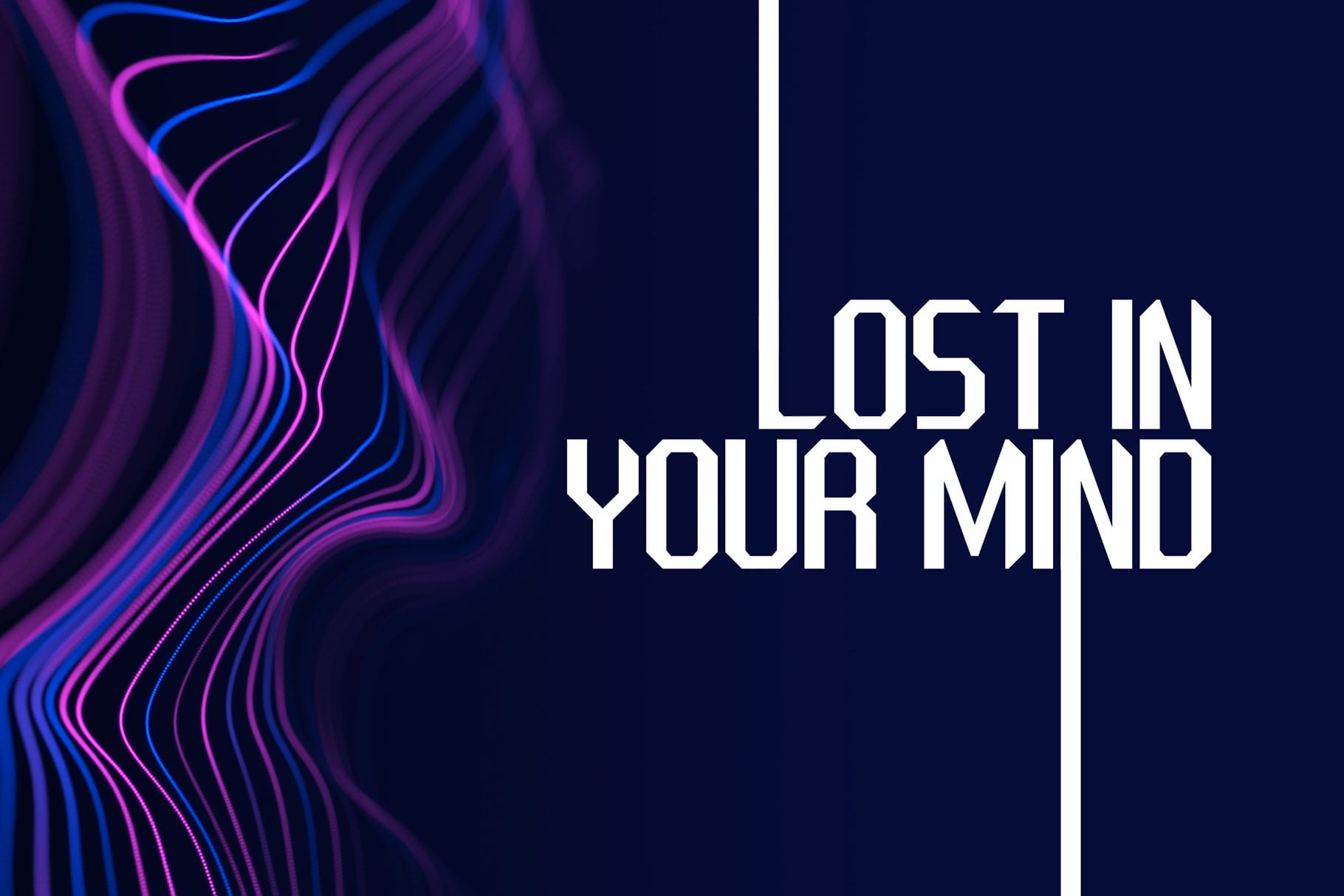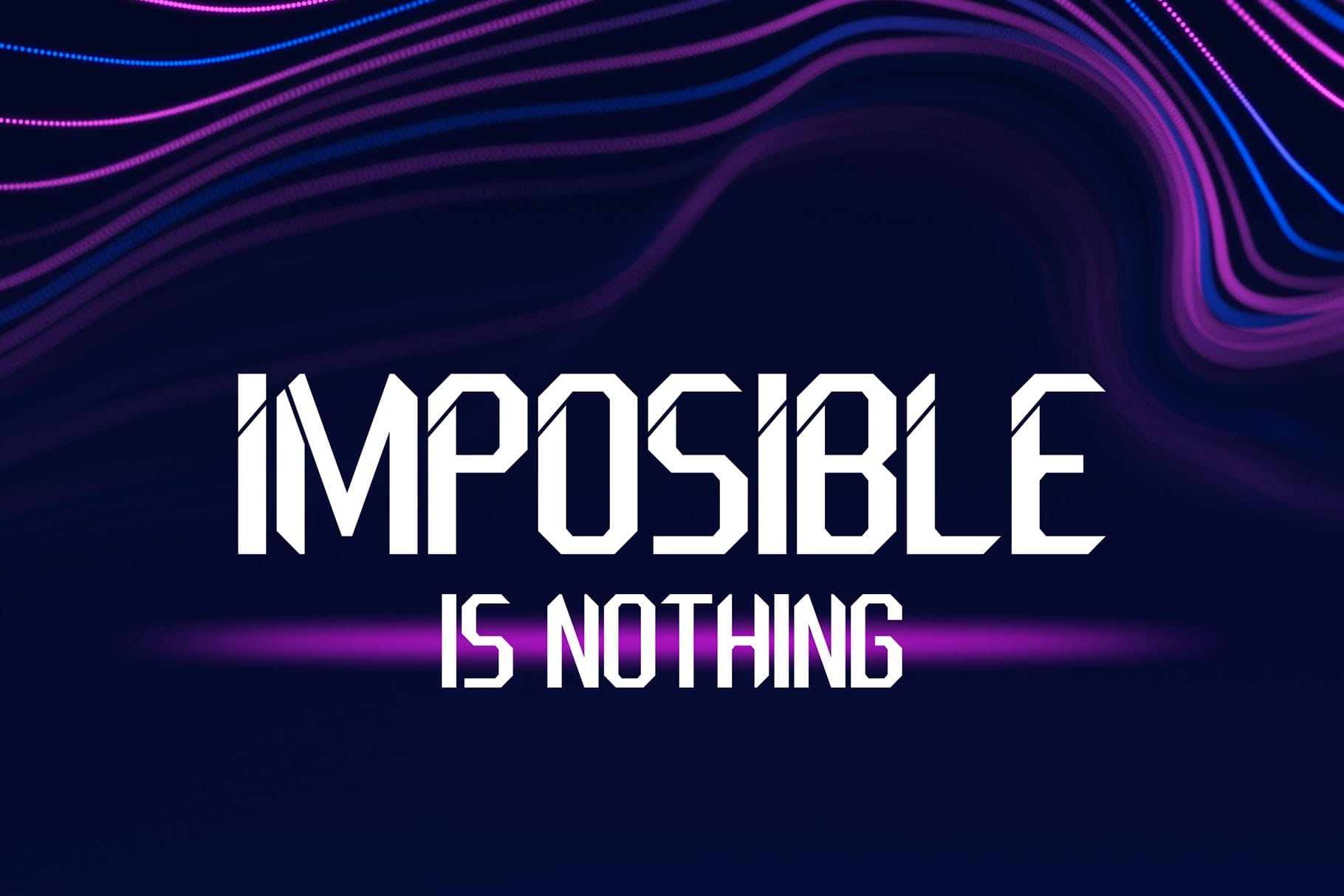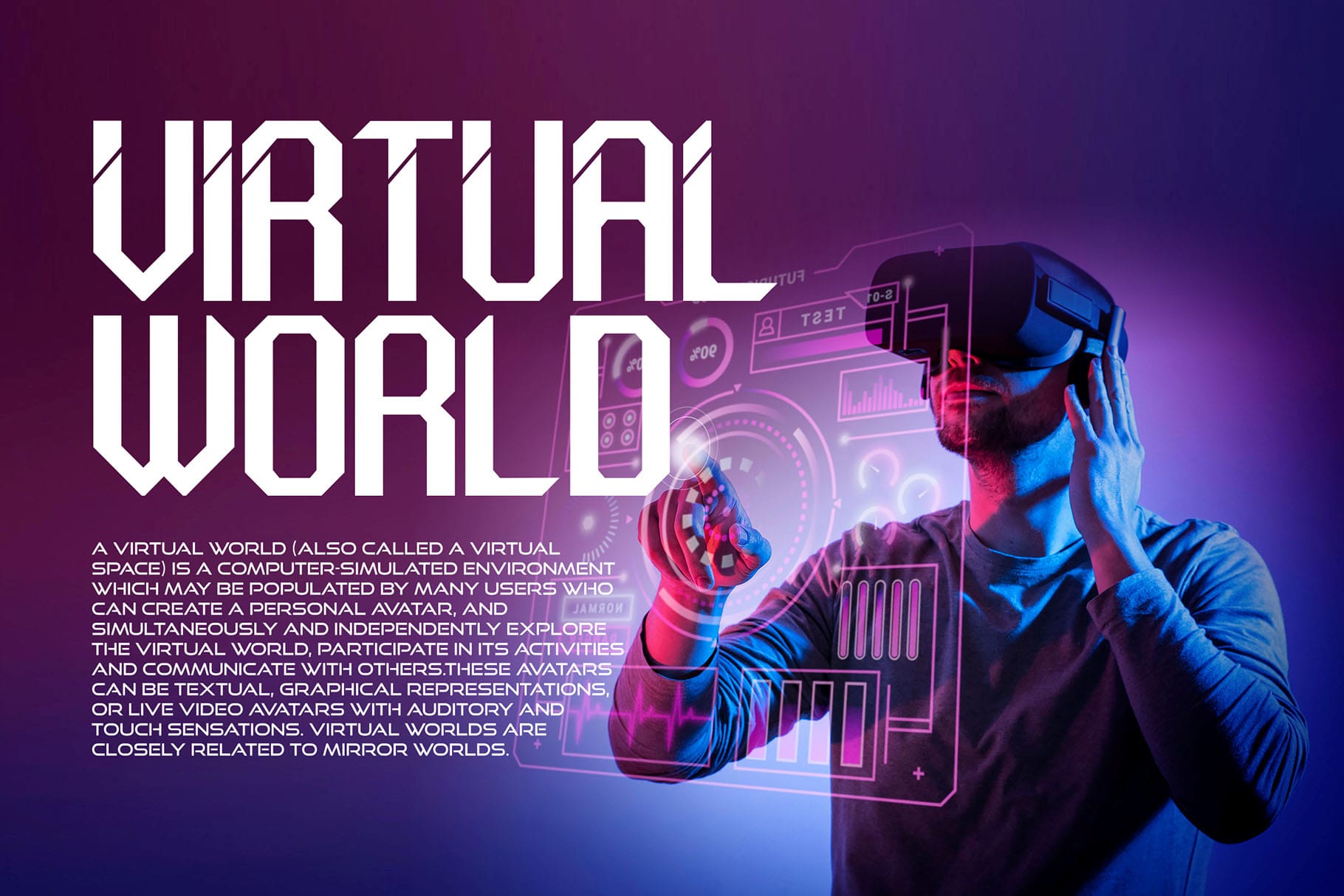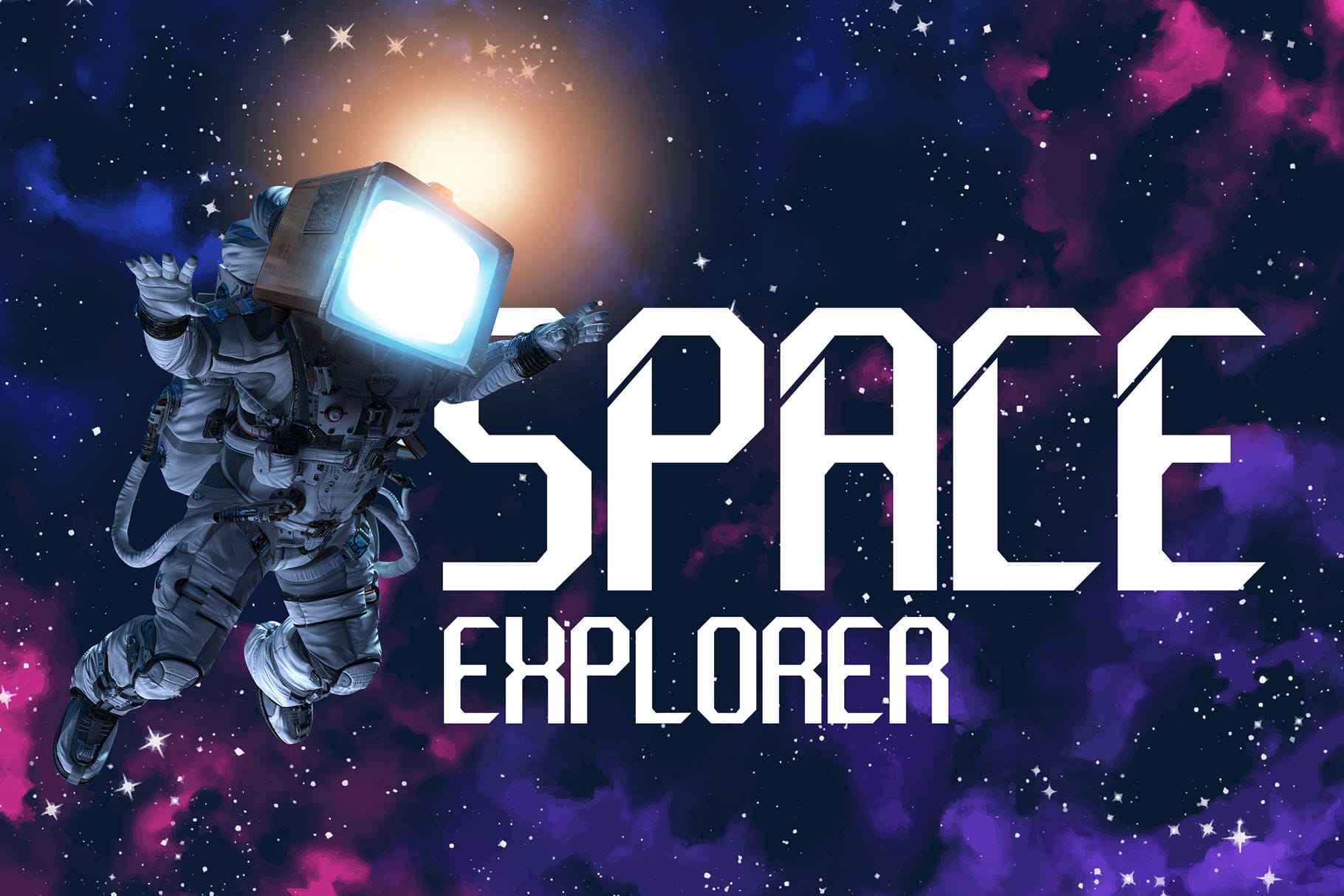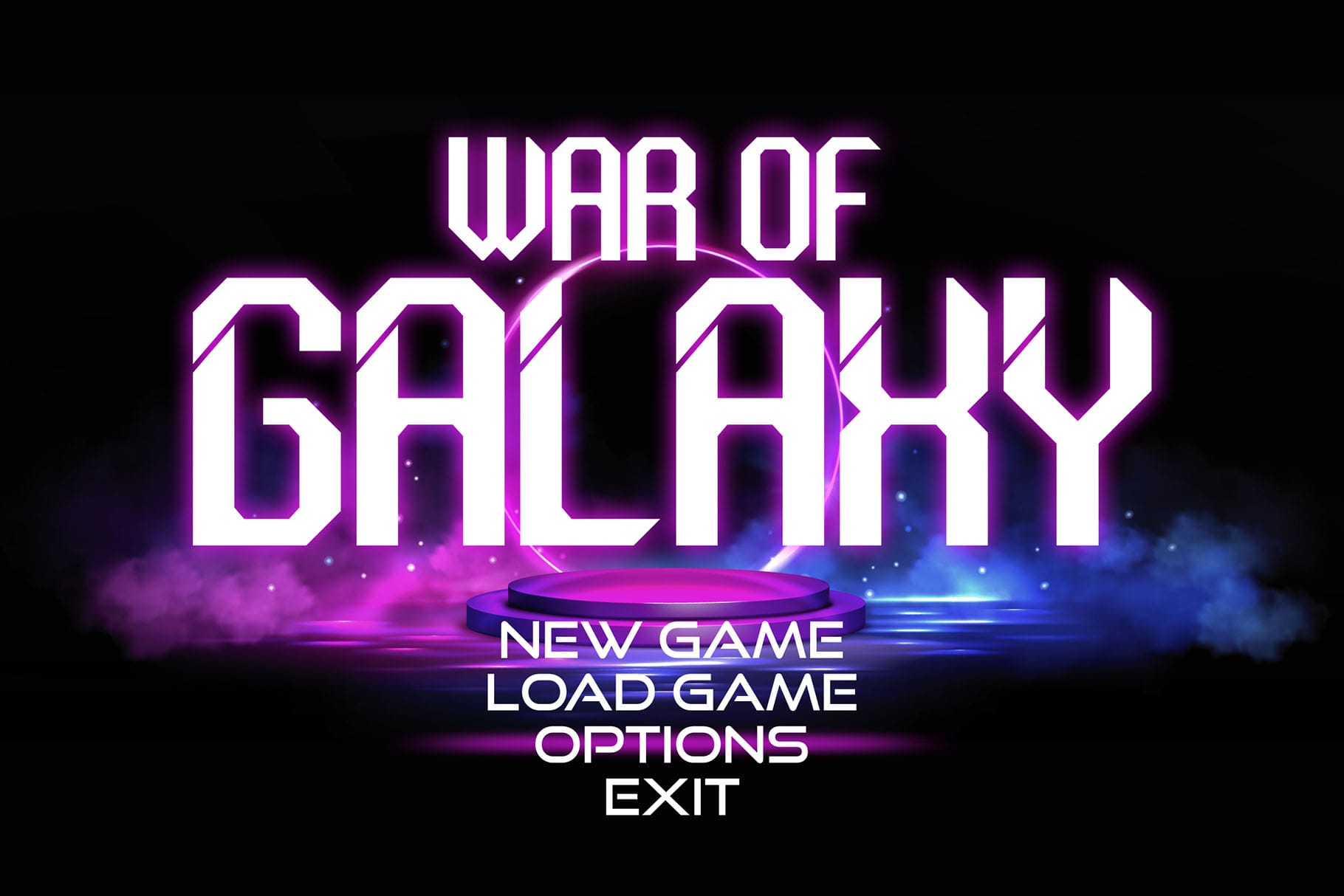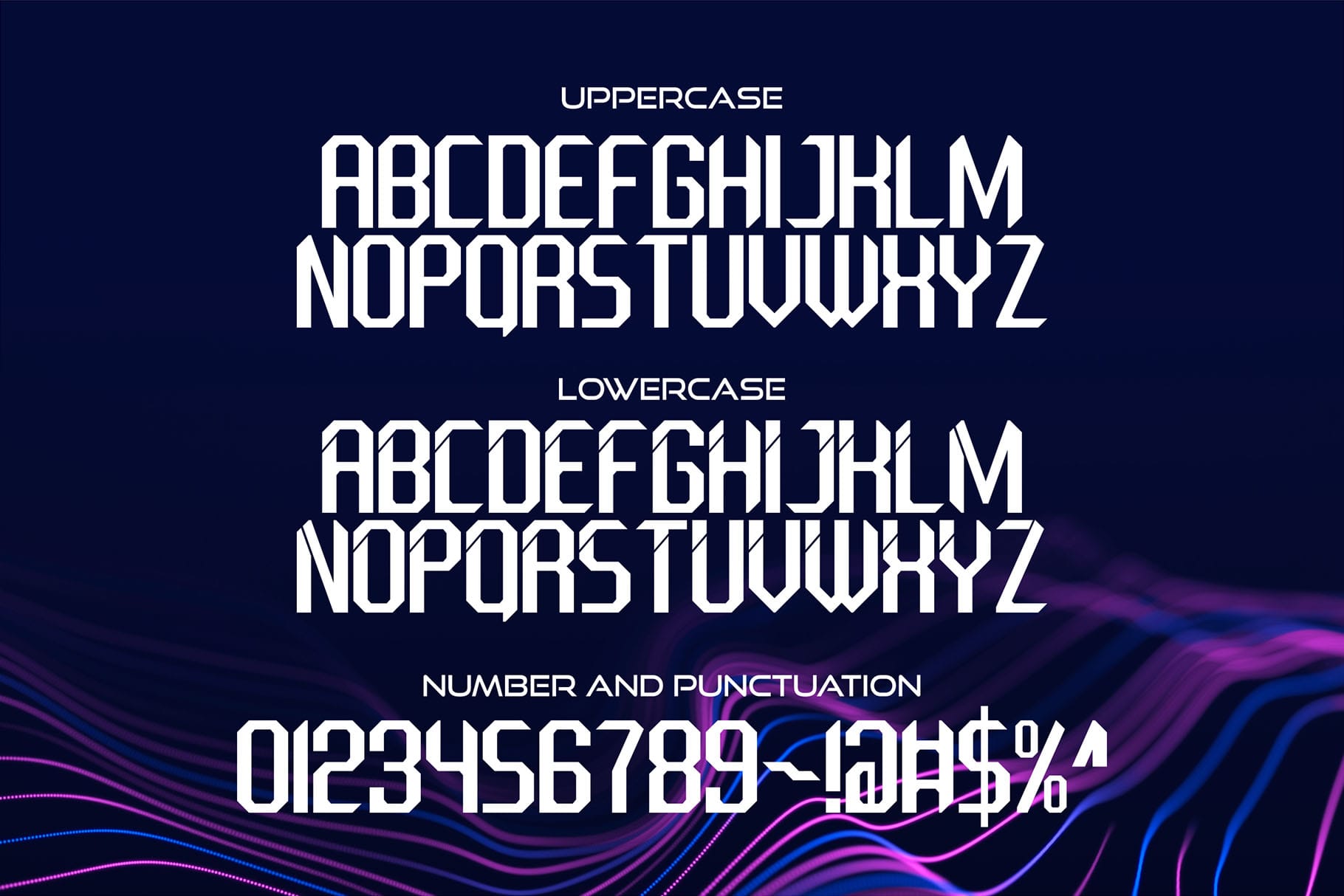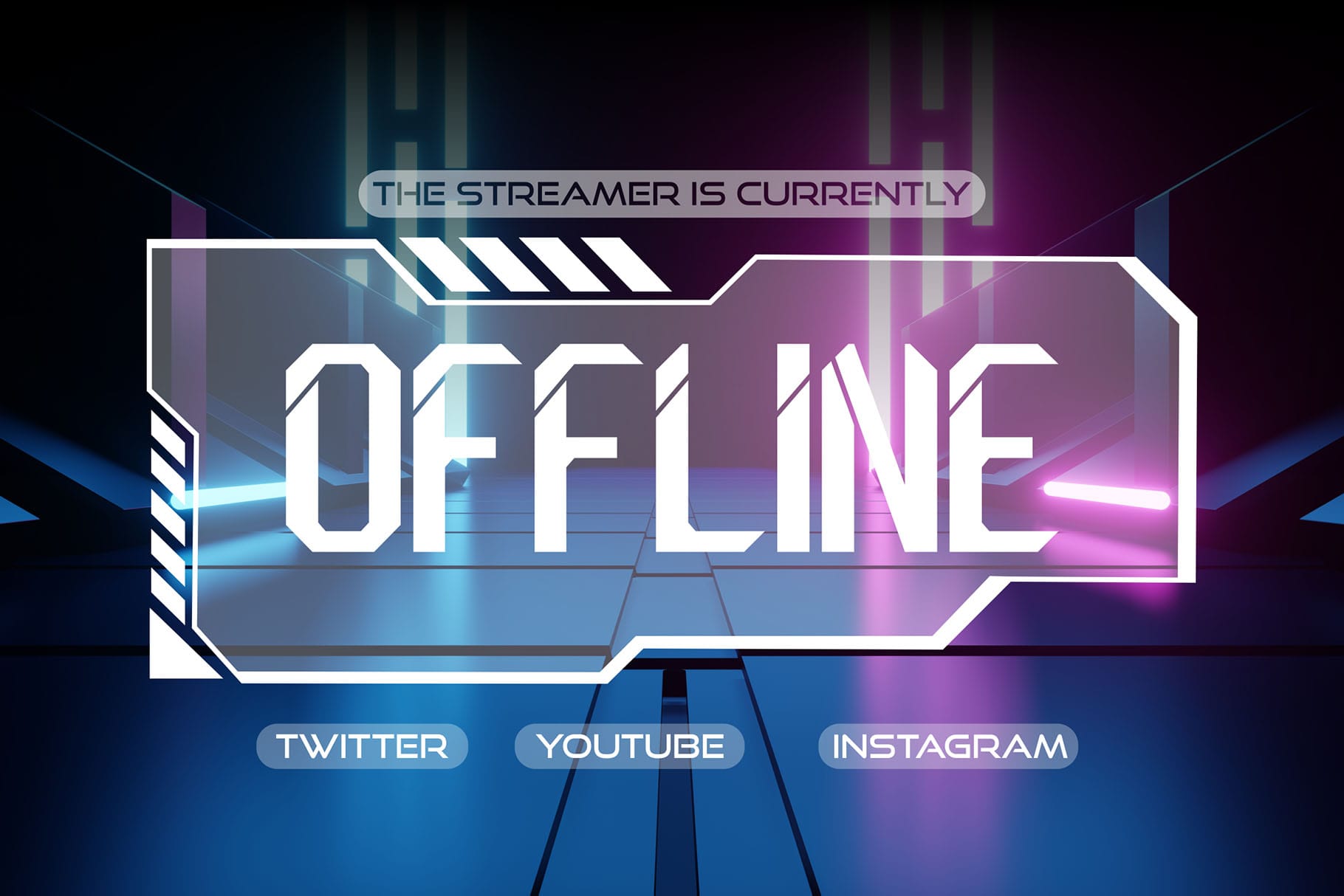
Oversa is a futuristic font that carries uppercase and lowercase characters with a set of numbers that showcase a futuristic unique design in addition to galactic alternates and a techno theme. Take a trip through time and use it for movie posters set in space or in the future.
Very suitable for sci-fi enthusiasts, create cards and personalized artwork, but don’t let the adventure stop with you. Use Oversa for UX /UI, and techno projects and allow the rest of the world to get a glimpse of what the future may hold.